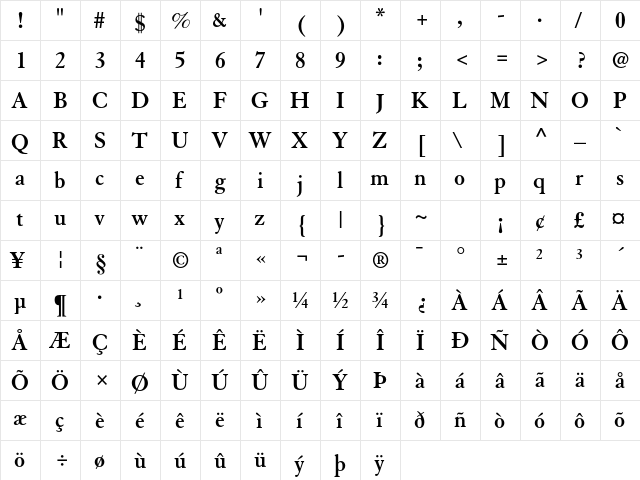
Granjon LT Std Bold
| Designer | George W. Jones |
Design Context for Granjon LT Std Typeface
Granjon LT Std takes a measured approach to typography — its balanced proportions and neutral character make it a reliable workhorse for both digital and print work. Its bold stroke weight gives it real presence on the page.